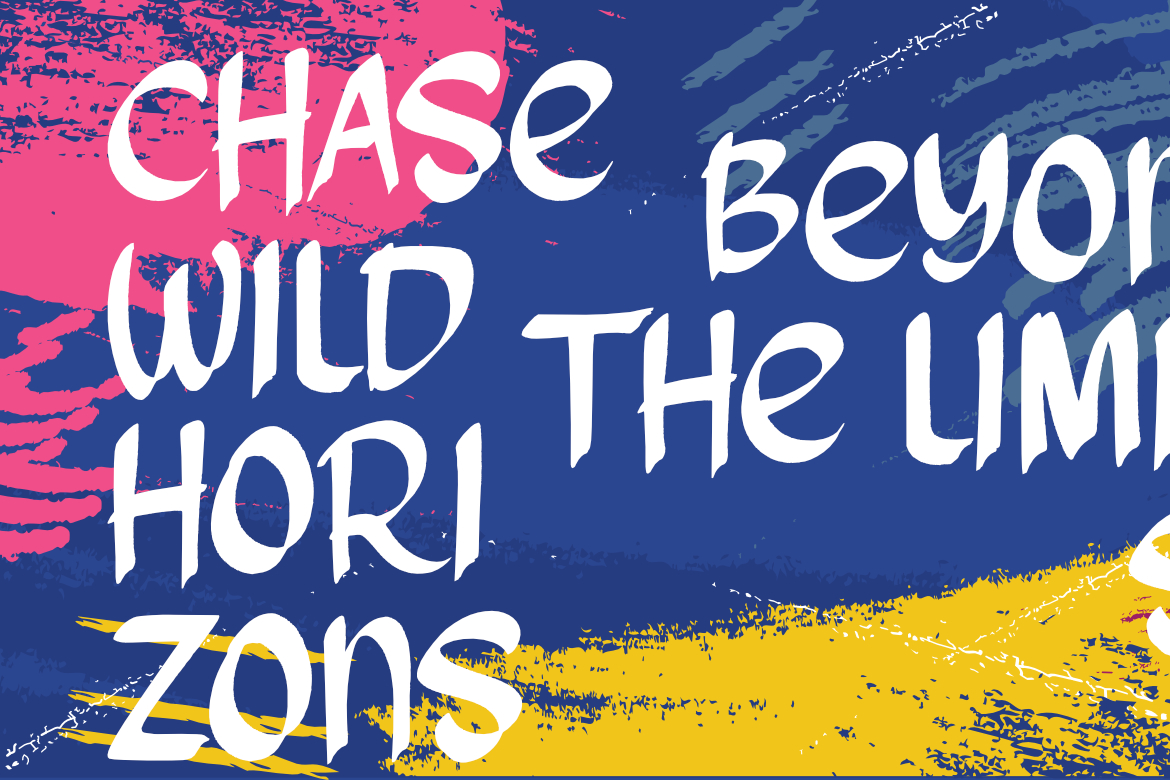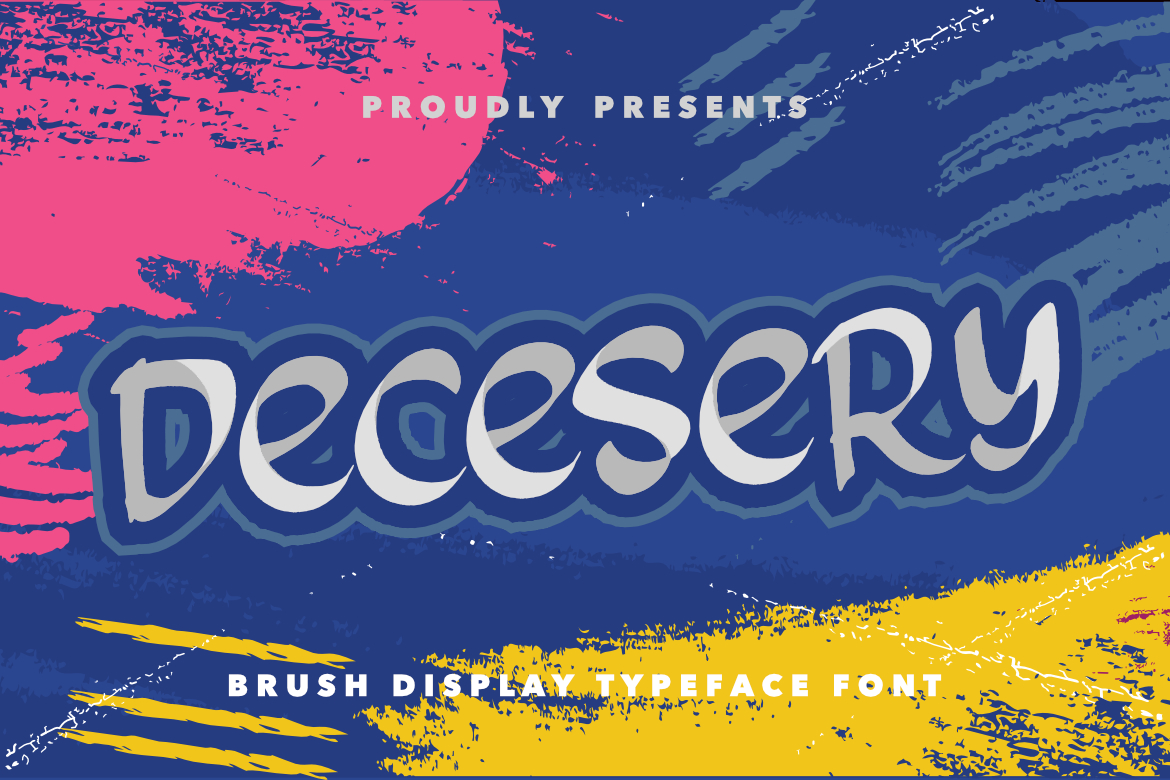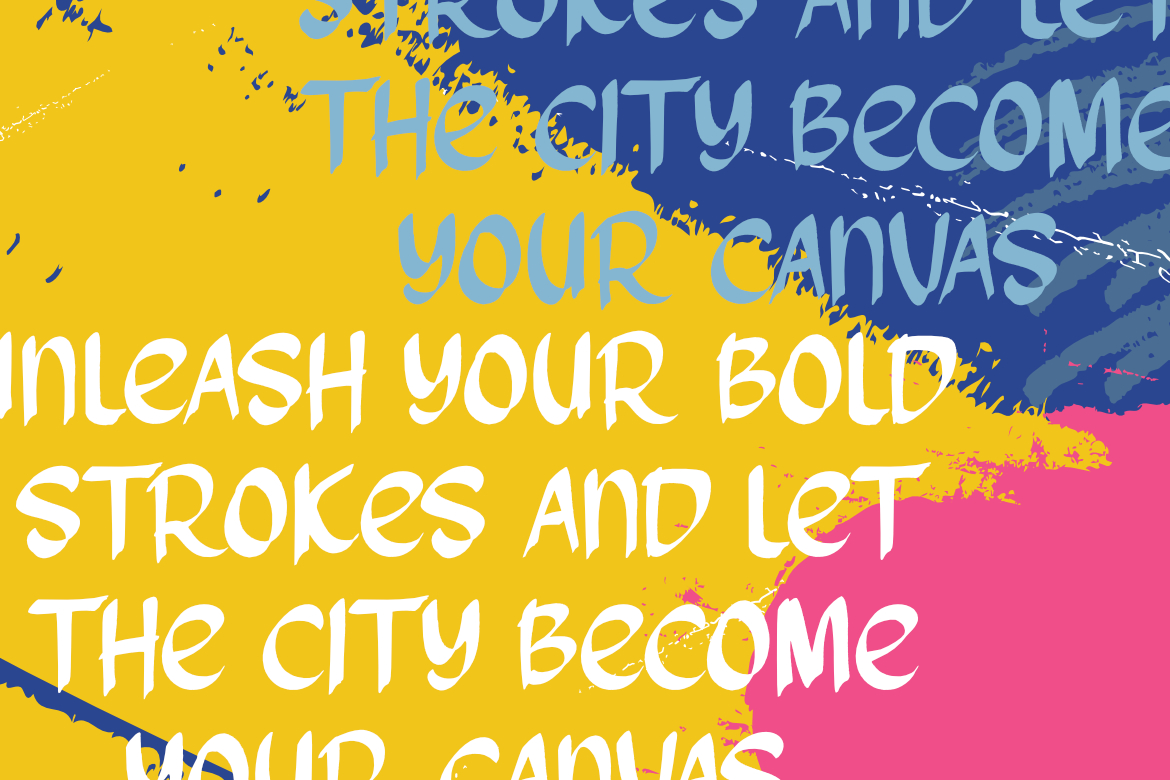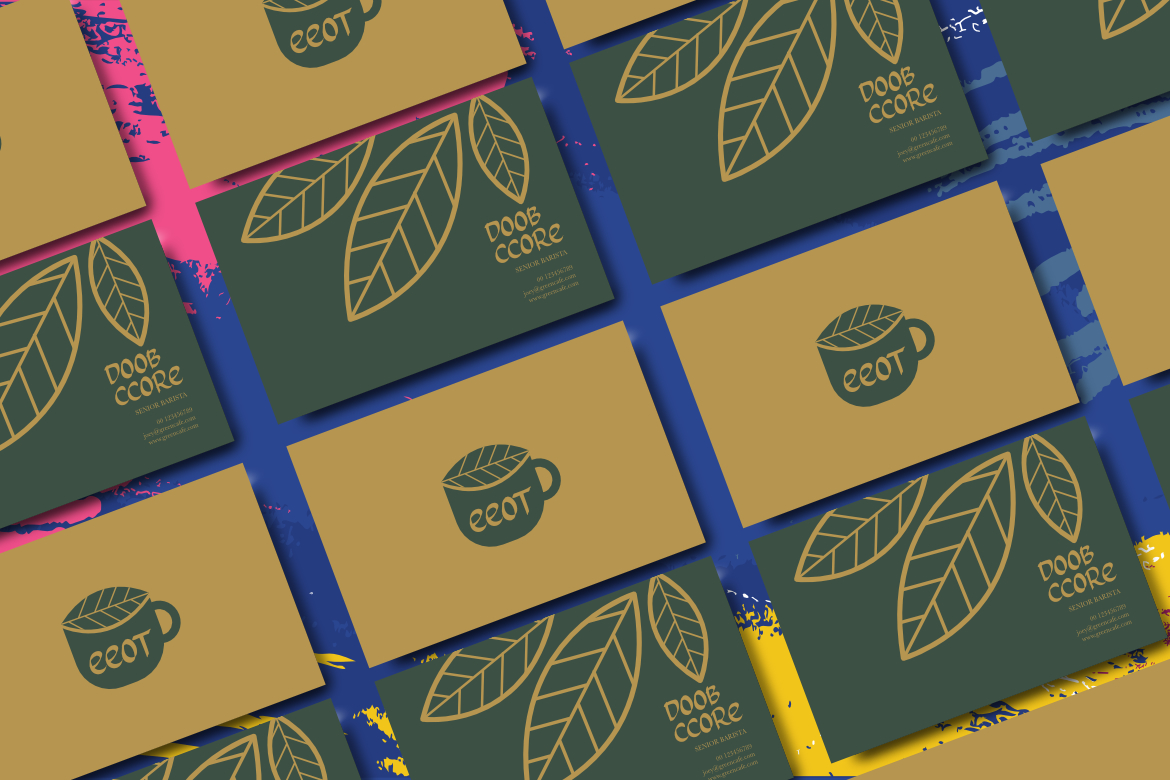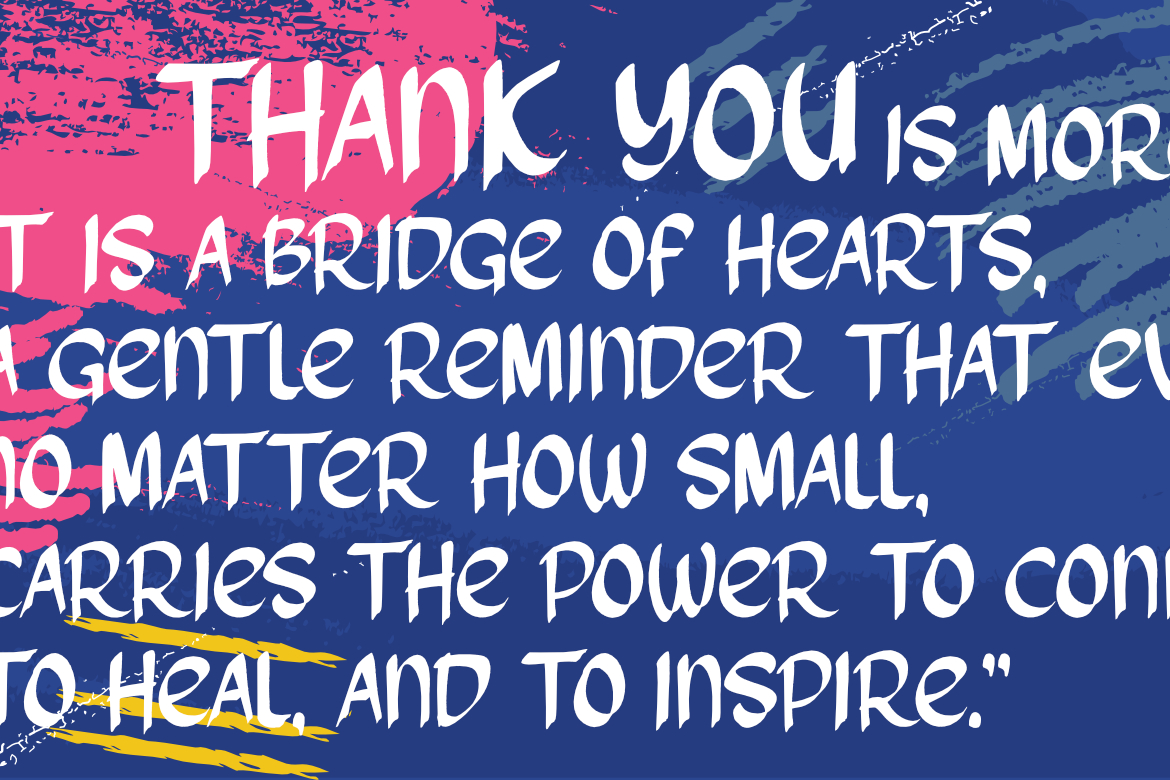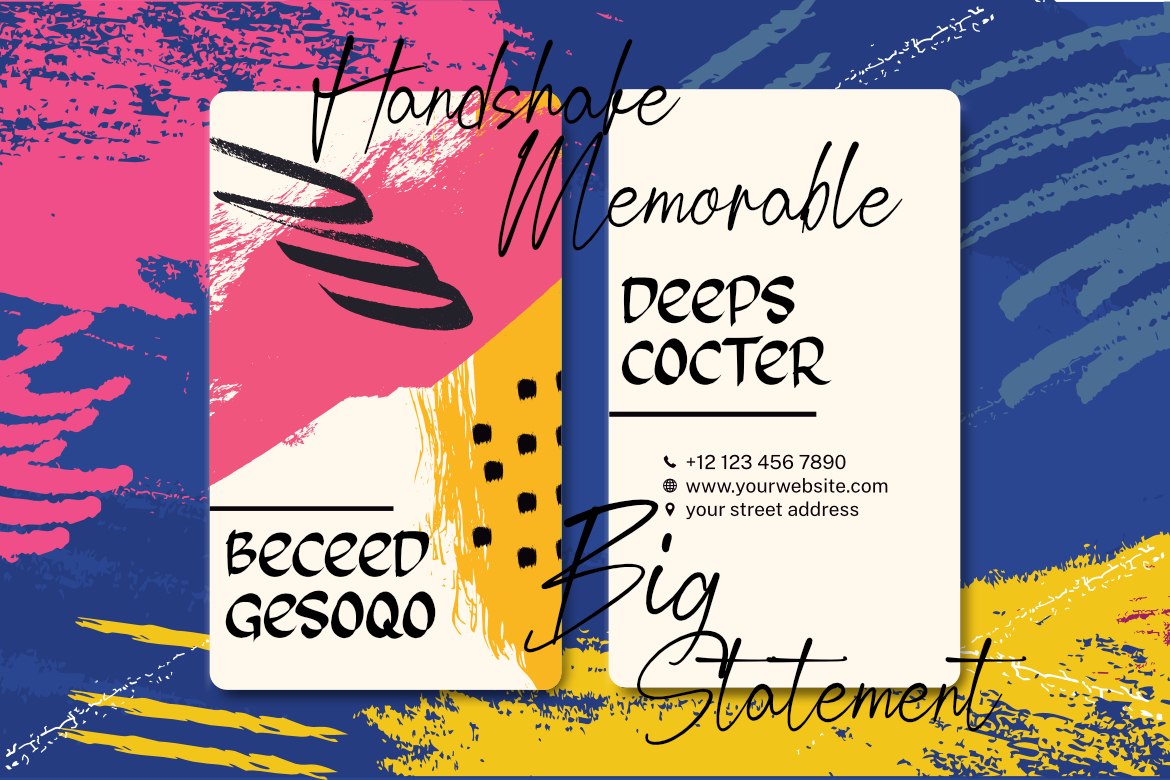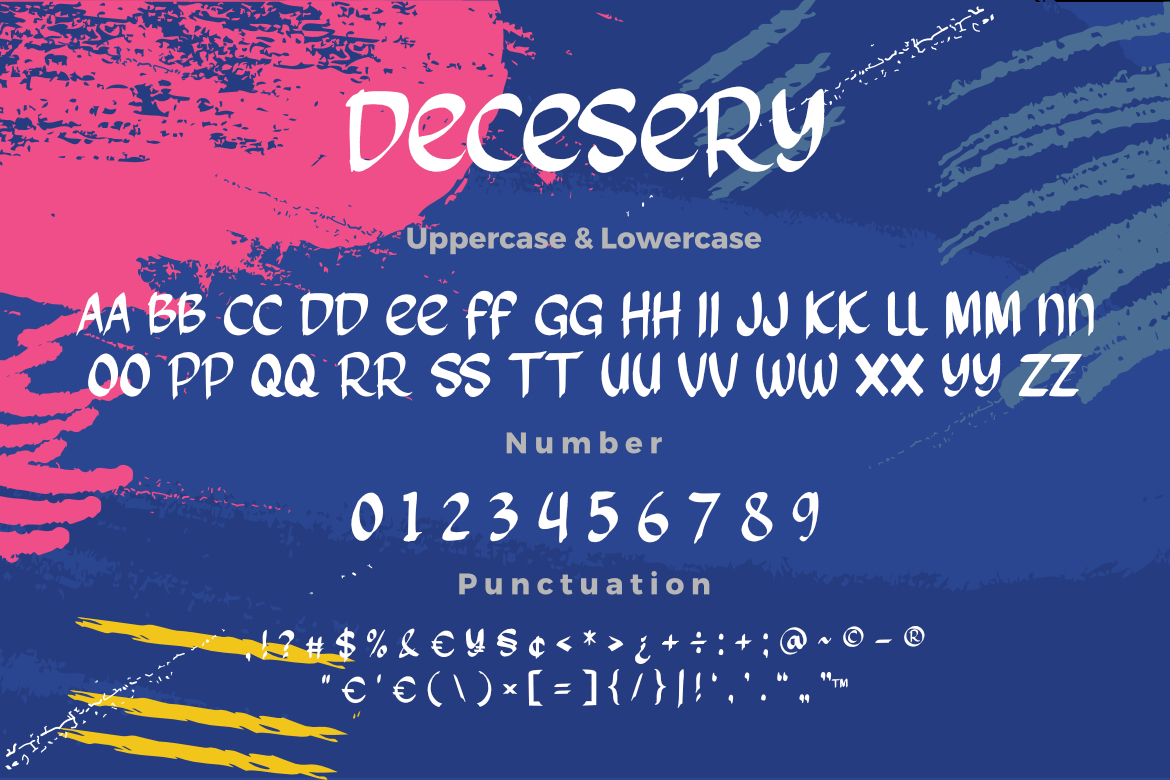
Decesery - Brush Display Typeface Font
**Decesery Brush Typeface Font**
Decesery is a bold and playful brush display typeface that captures the spirit of handwritten expression with a modern edge. Designed with smooth curves and natural stroke details, this font delivers a casual yet striking personality, making it perfect for eye-catching titles and creative projects.
Its handcrafted look brings a sense of authenticity and energy, suitable for posters, headlines, branding, packaging, or any design that needs a strong personal touch. Deces balances boldness and friendliness, ensuring versatility across both digital and print media.
With its unique brush style, Decesery adds a fresh and dynamic character to your typography collection—ideal for designers seeking a fun yet professional display font.
**Key Features :**
* Uppercase & Lowercase Letters
* Numerals & Punctuation
Perfect for: Logos, Posters, Headlines, Packaging, Quotes, Branding, Social Media, and more.